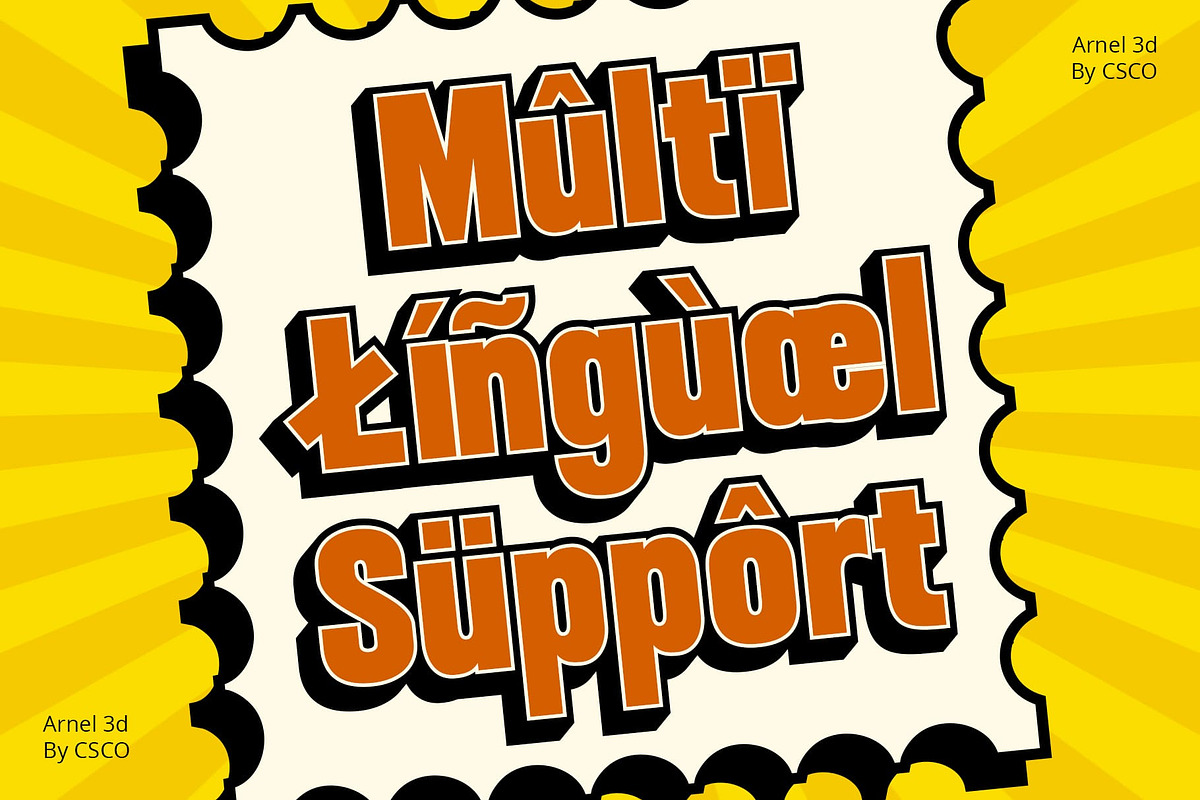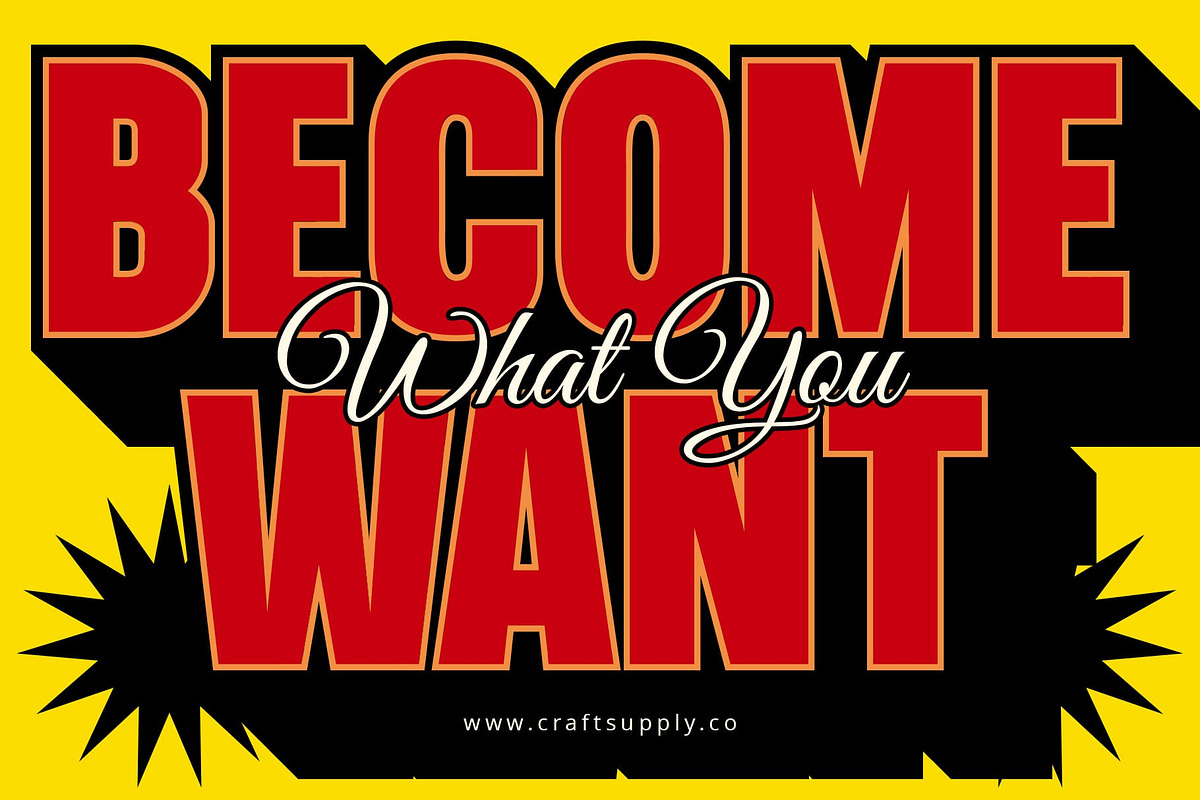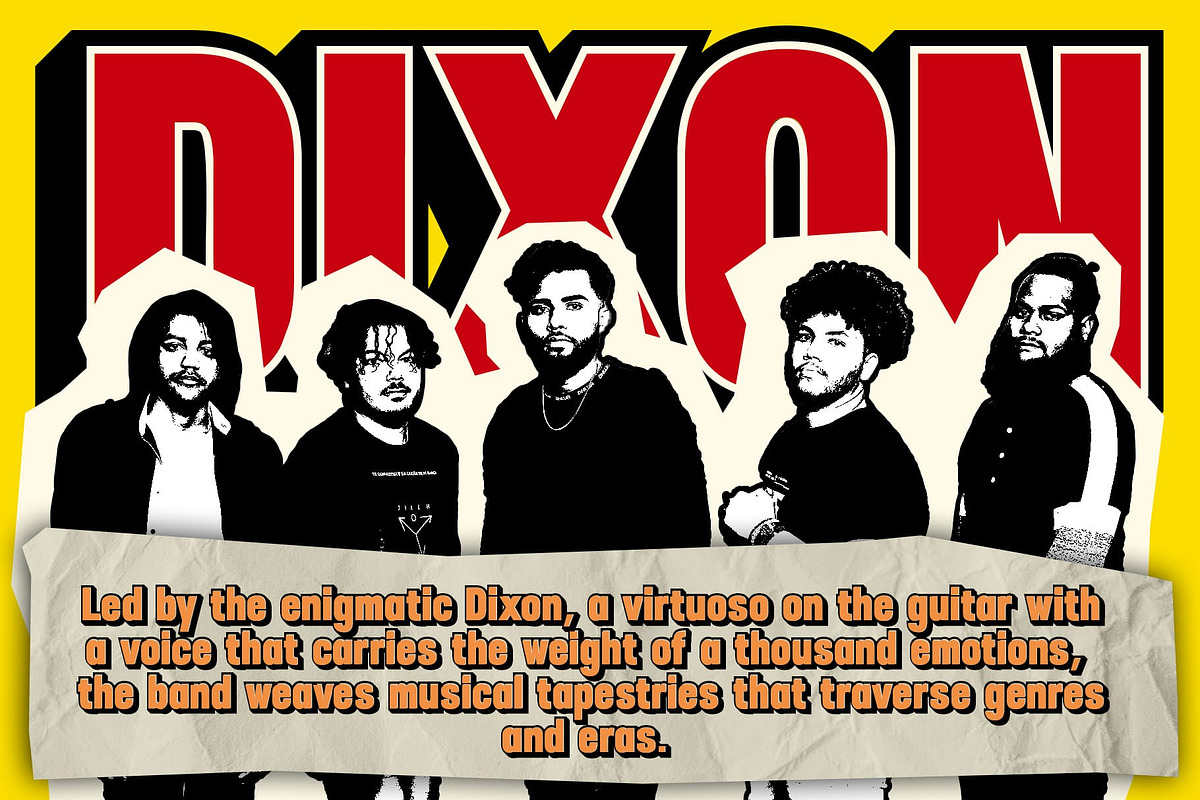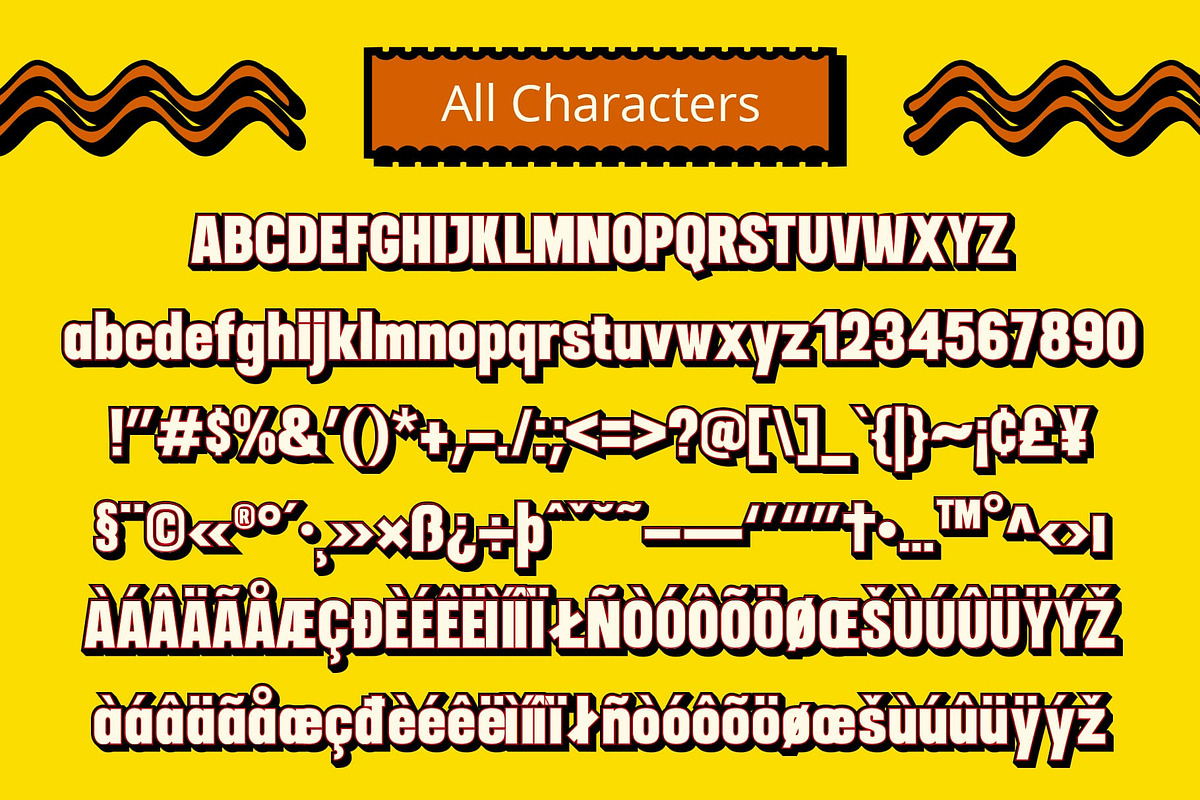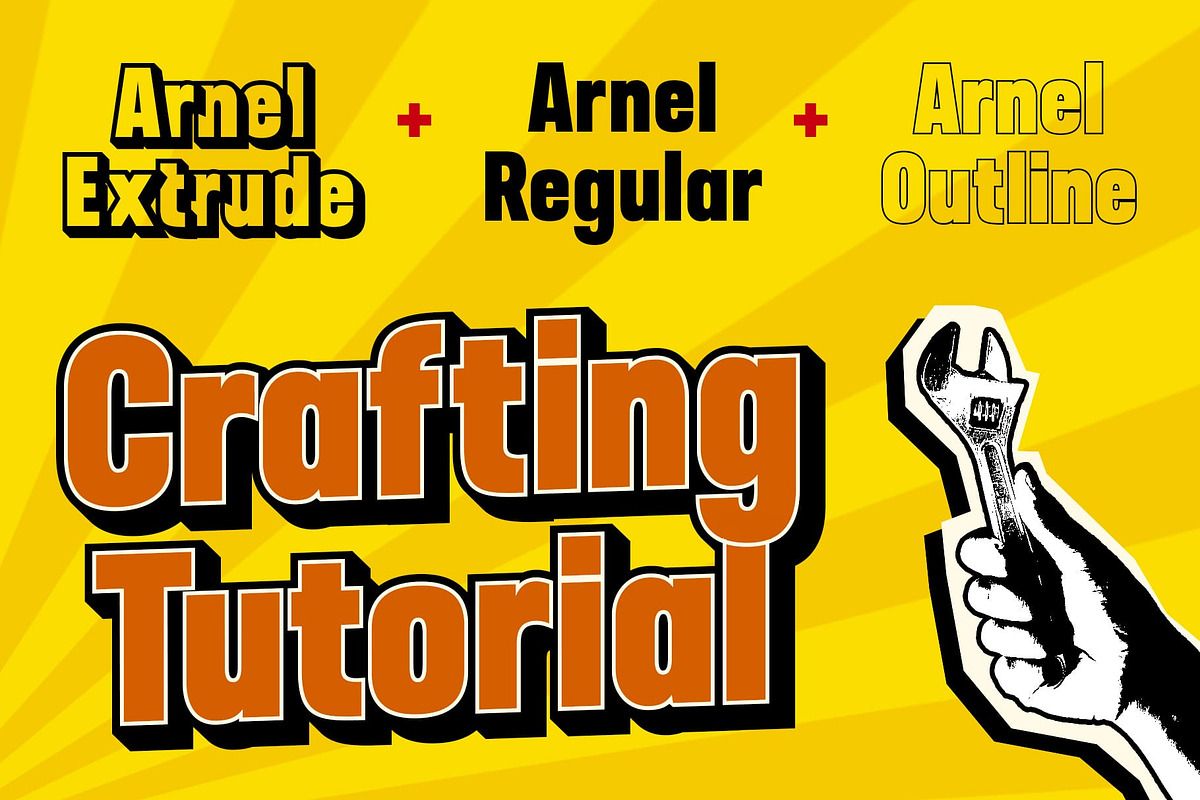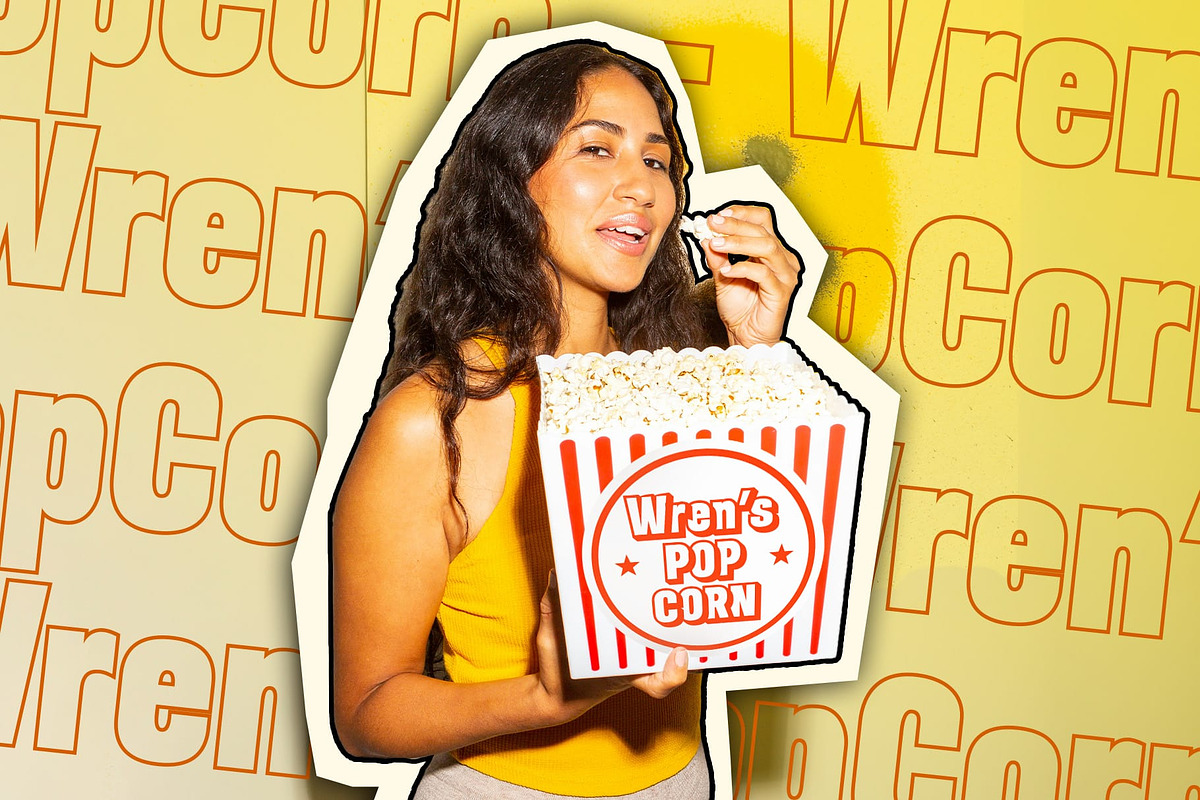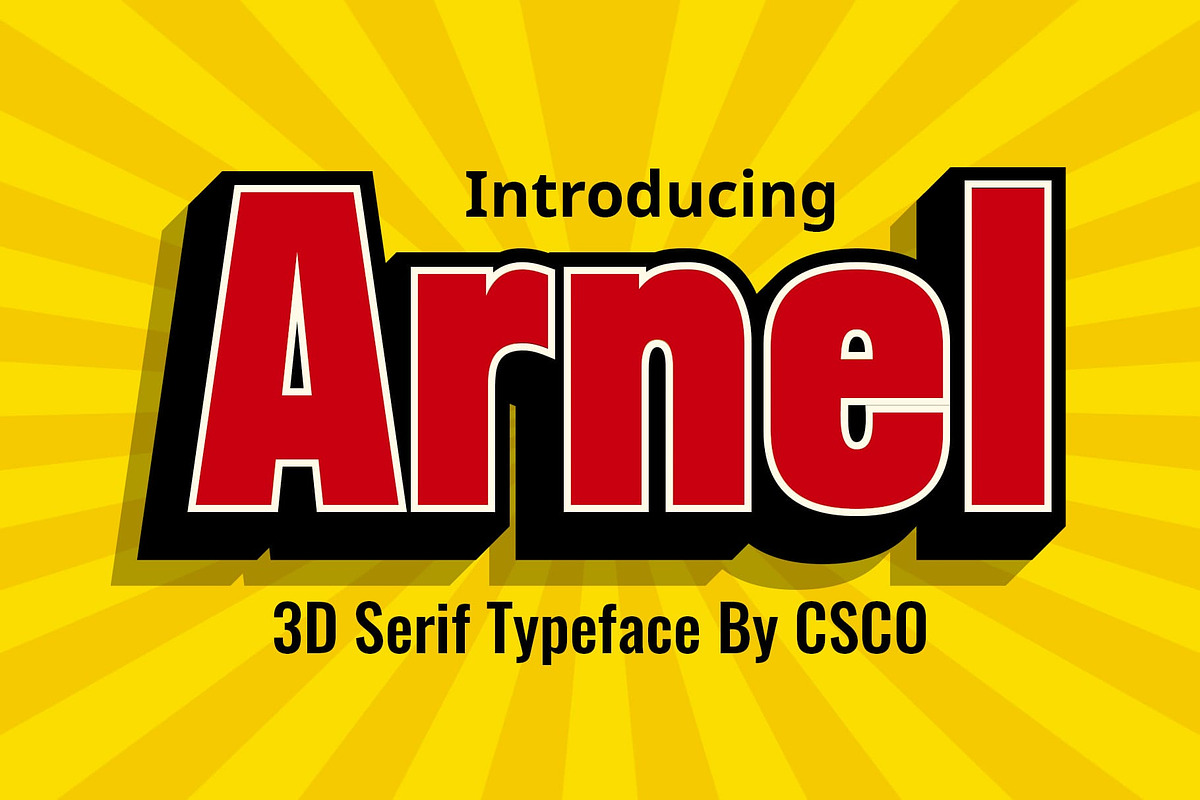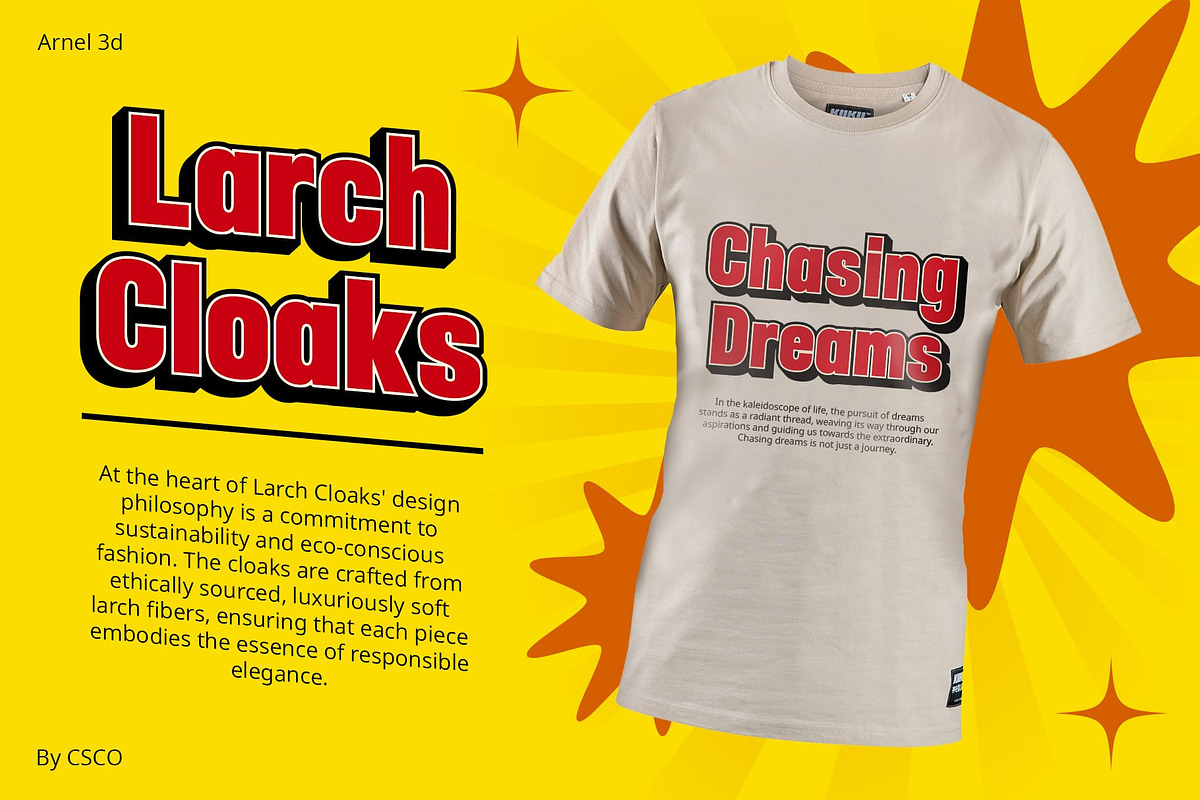
Arnel 3D
Arnel 3D: A Fusion of Boldness and Dimensionality
A Robust Commencement Embark on a typographic journey with this sans serif font , where each character boasts a formidable and impactful presence, immediately drawing the eye.
Crafting Illusions of Depth Delve into the captivating realm of Arnel 3D, where masterfully integrated 3D effects ingeniously play with light and shadow, creating a multi-dimensional feast for the eyes.
A Burst of Excitement and Dynamism This font not only stands out; it exudes vitality. The harmonious marriage of boldness and 3D effects infuses the font with a dynamic quality that commands attention and interest.
Versatile Design Possibilities Unlock the endless design possibilities that Arnel 3D offers across diverse projects. Whether enhancing headlines, energizing posters, or elevating branding, this font injects a bold aesthetic and captivating 3D allure.
In Conclusion: Arnel 3D – Where Boldness and Dimensionality Converge This font transcends the ordinary; it’s a bold statement in design. With its commanding shapes and immersive 3D enchantment, it transforms mundane text into a visual spectacle, ensuring every project stands out. Immerse yourself in the bold and dimensional universe of Arnel 3D, where designs come alive with flair and captivation.